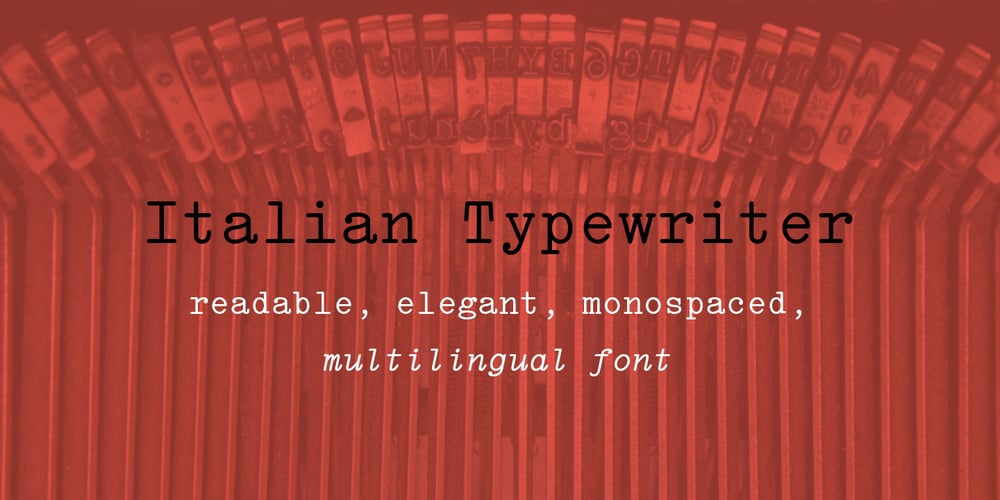
Italian Typewriter Font Family was designed by Leonardo Di Lena and published by Flanker. Italian Typewriter contains 9 styles and family package options. Italian Typewriter was designed by Leonardo Di Lena studying some Italian typewriters of the thirties and forties. Italian Typewriter is a monospaced font that can be used for any work that requires an old-fashioned look or an old-tech look.